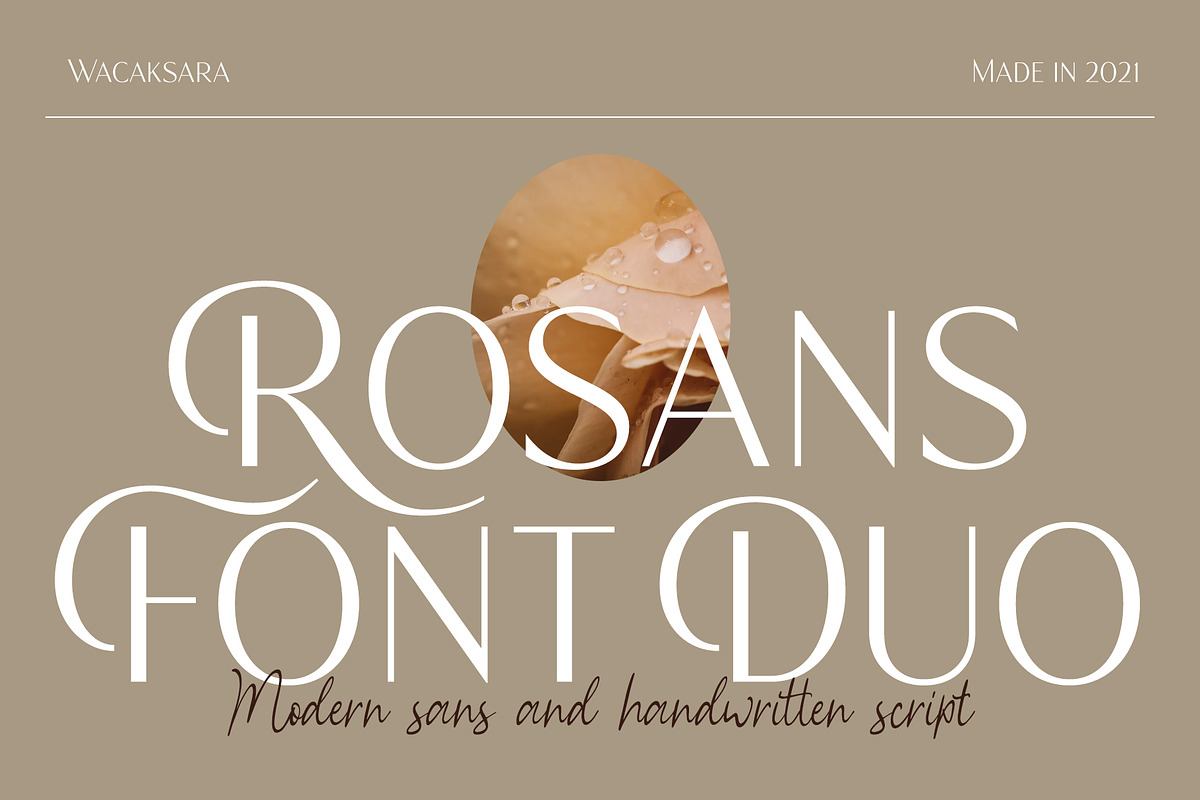
Bring versatility and style to your designs with Rosans Font Duo Free Download — a perfect combination of a flowing script and a clean, modern sans serif. Designed for branding, logo creation, editorial work, website typography, and social media content, this duo allows you to craft dynamic, stylish designs that stand out.
The Rosans duo offers both the elegance of a handwritten script and the simplicity of a sans serif font, providing the perfect balance between creative flair and professional sophistication. It includes uppercase and lowercase letters, punctuation, numerals, and multilingual support — offering complete flexibility across all your design projects.
Design with precision and style. Download Rosans today and elevate your typography with a font duo that speaks both elegance and modernity.